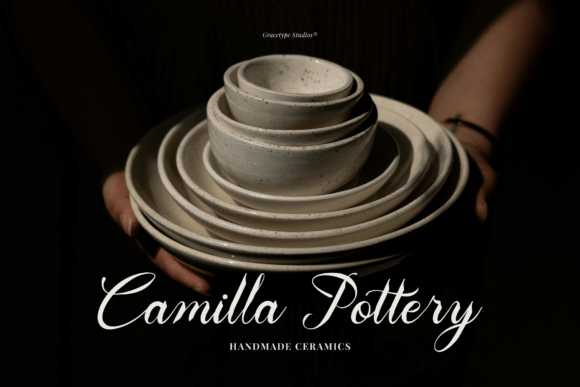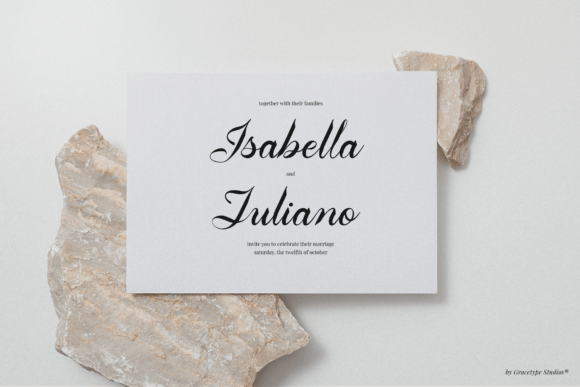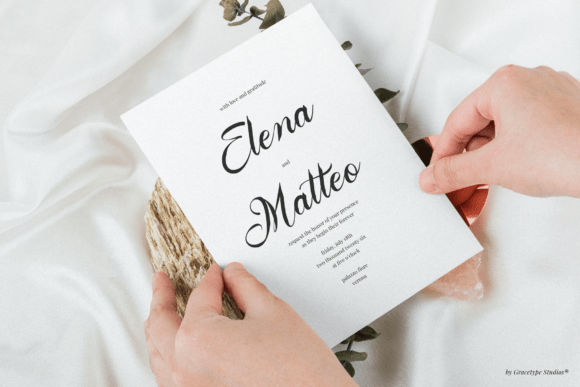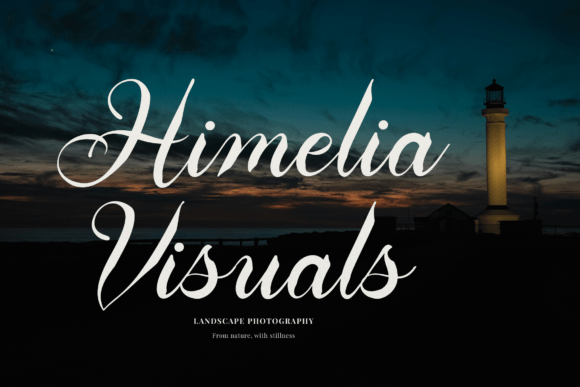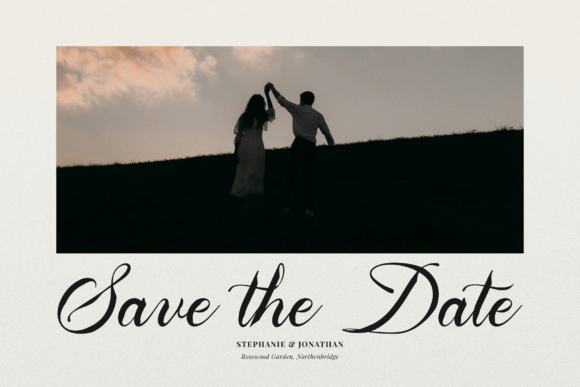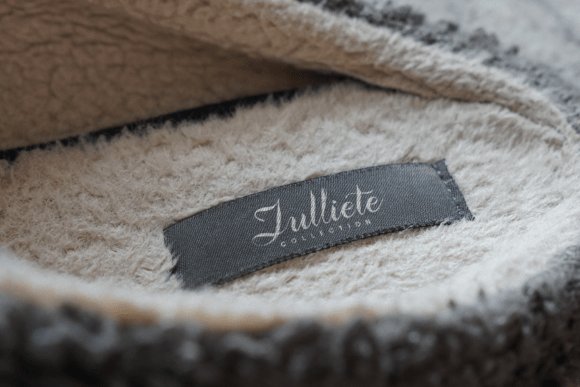
Discover the Elegance of Aipshar Font: Elevate Your Design with Sophisticated Penmanship
In the world of typography, few fonts capture the essence of elegance and sophistication as beautifully as Aipshar. This stunning script font is a masterpiece of modern calligraphy, designed to bring a touch of luxury and refinement to any design project. With its fluid, high-contrast letterforms, Aipshar evokes the skillful hand of a master calligrapher, making it an ideal choice for designers and crafters seeking to add a level of artisanal prestige to their work.
The Characteristics of Aipshar Font
Aipshar’s design is characterized by its dramatic, sweeping ascenders and sharp, refined terminals. These features give the font a sense of movement and fluidity, creating a rhythmic baseline that draws the eye effortlessly across the text. The intricate ligatures, carefully crafted to connect letters in a harmonious flow, further enhance the font’s hand-lettered aesthetic. This seamless integration of letters creates a natural, organic feel that is both classical and contemporary.
One of the standout features of Aipshar is its extensive glyph set, comprising over 280 characters. This vast range of glyphs, combined with full multilingual support, makes Aipshar a versatile tool for designers working on international projects or seeking to add a unique touch to their typography. Whether you’re crafting a brand identity for a luxury boutique, designing bespoke wedding stationery, or creating high-end editorial headers, Aipshar provides the flexibility and elegance to bring your vision to life.
Applications of Aipshar Font
Aipshar’s sophisticated design makes it suitable for a wide range of applications where a high level of elegance and refinement is desired. Some of the ideal uses for Aipshar include:
- Luxury Branding: Elevate your brand’s identity with a font that exudes sophistication and luxury. Aipshar’s unique character makes it perfect for high-end brands looking to stand out in a crowded market.
- Bespoke Wedding Stationery: Add a touch of elegance to wedding invitations, programs, and other stationery with Aipshar’s beautiful script. Its classic yet contemporary feel ensures it will complement any wedding theme.
- High-End Editorial Headers: Make a statement with your editorial content using Aipshar for headers and titles. Its dramatic ascenders and refined terminals will draw readers in and add a level of sophistication to your publication.
- Chic Fashion Logos: For fashion brands looking for a logo that embodies style and elegance, Aipshar offers a solution that is both timeless and on-trend. Its unique letterforms will help your brand stand out in the fashion industry.
Why Choose Aipshar Font?
Choosing Aipshar for your design project offers numerous benefits. Its sophisticated design ensures that your work will stand out, conveying a sense of luxury and attention to detail that is hard to achieve with more common fonts. The font’s versatility, thanks to its extensive glyph set and multilingual support, means it can be used across a variety of projects and languages, making it a valuable addition to any designer’s toolkit.
Moreover, Aipshar’s ability to evoke a sense of polished, artisanal craftsmanship makes it an excellent choice for projects where a personal touch is desired. Whether you’re a designer looking to offer clients a unique typographic solution or a crafter seeking to add a professional finish to your work, Aipshar provides the means to achieve a level of sophistication and elegance that elevates your designs to new heights.
Aipshar font is a remarkable addition to the world of typography, offering designers and crafters a tool of unparalleled elegance and sophistication. Its fluid letterforms, intricate ligatures, and extensive glyph set make it a versatile and beautiful choice for a wide range of design projects. Whether you’re aiming to create a luxury brand identity, design stunning wedding stationery, or add a touch of class to editorial content, Aipshar delivers a timeless beauty and artisanal prestige that will make your work truly unforgettable.
In the hands of a skilled designer or crafter, Aipshar has the power to transform any text into a work of art, imbuing it with a sense of refinement and luxury that captivates audiences. With Aipshar font, you have the opportunity to elevate your designs, make a lasting impression, and bring a touch of sophisticated penmanship to every word.